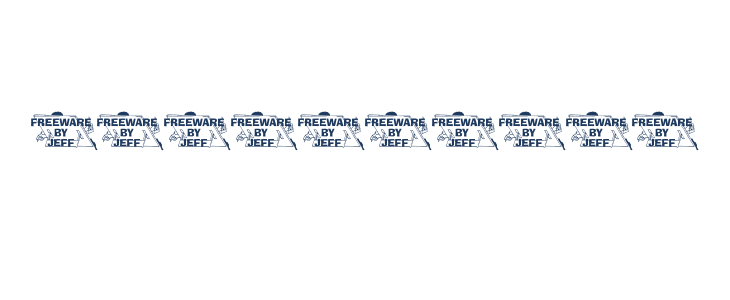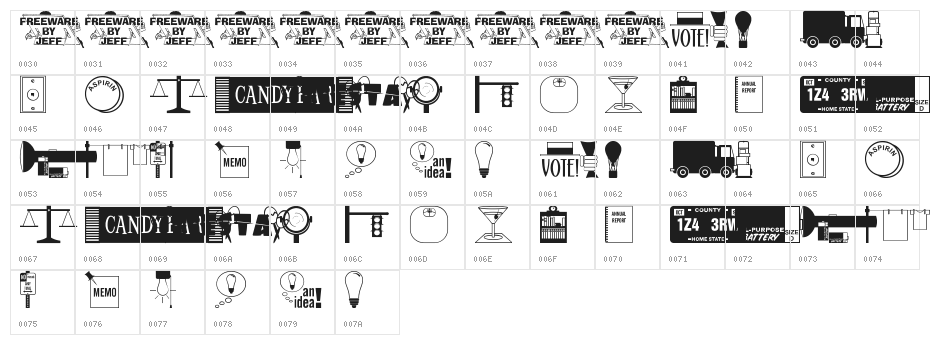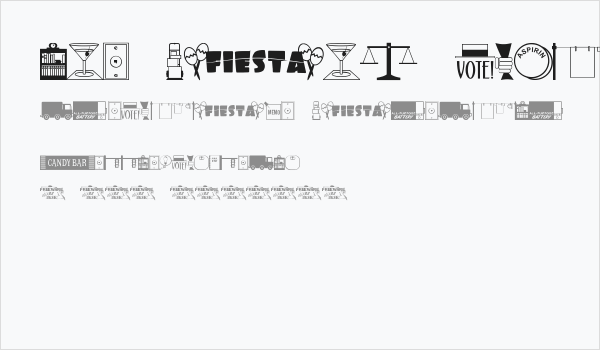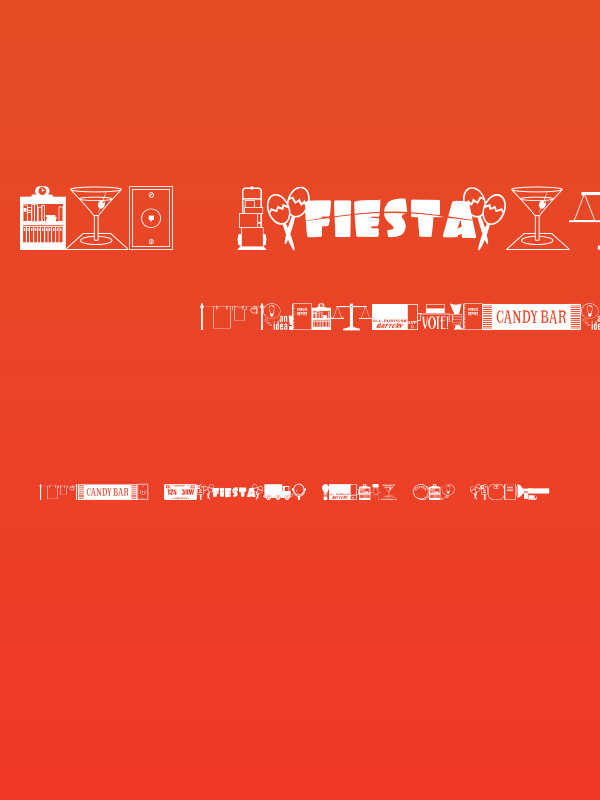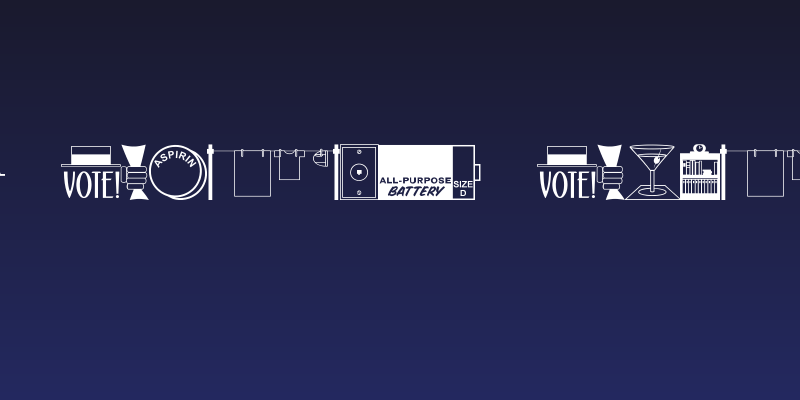
One Ding After Another JL Font
One Ding After Another JL Description
This is a highly decorative and playful font that incorporates a variety of whimsical and illustrative elements. Each character is represented by a unique graphic, ranging from everyday objects to abstract designs. The font is not meant for traditional text but rather for creative and artistic projects where visual impact is key. The characters are bold and attention-grabbing, making them suitable for headlines or thematic designs. The overall style is eclectic and fun, with a mix of modern and retro influences.
| Use Case | Headlines, Logos, Artistic designs |
| Proposed Projects | Ideal for creative projects such as posters, party invitations, or themed event branding where a playful and artistic touch is desired. |